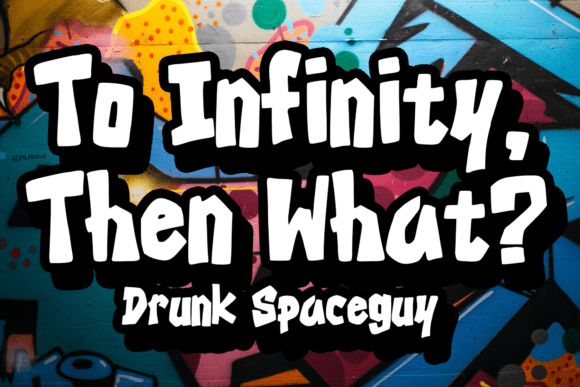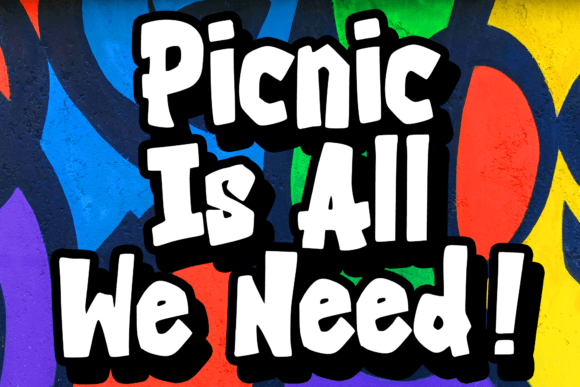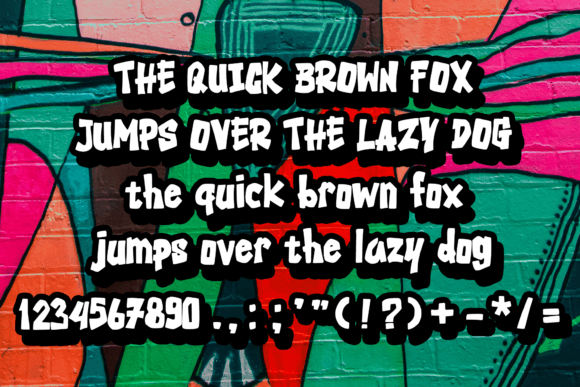
Introduction to Graffiti Night Font
Graffiti Night is a bold graffiti street style display font, suitable for your graffiti style needs.
You can use it for anything ranging from t-shirts and clothing, for your book designs, street art needs, greeting cards, stickers, posters, banners, or anything that needs a bold and fun touch Try it to create fabulous designs and feel the fun and cheering vibes with it.
Key Features of Graffiti Night Font
Why Choose Graffiti Night Font?
Graffiti Night Font offers exceptional quality and versatility, making it a valuable addition to your design toolkit. Whether you’re creating for personal projects or commercial use, Graffiti Night Font delivers professional results.